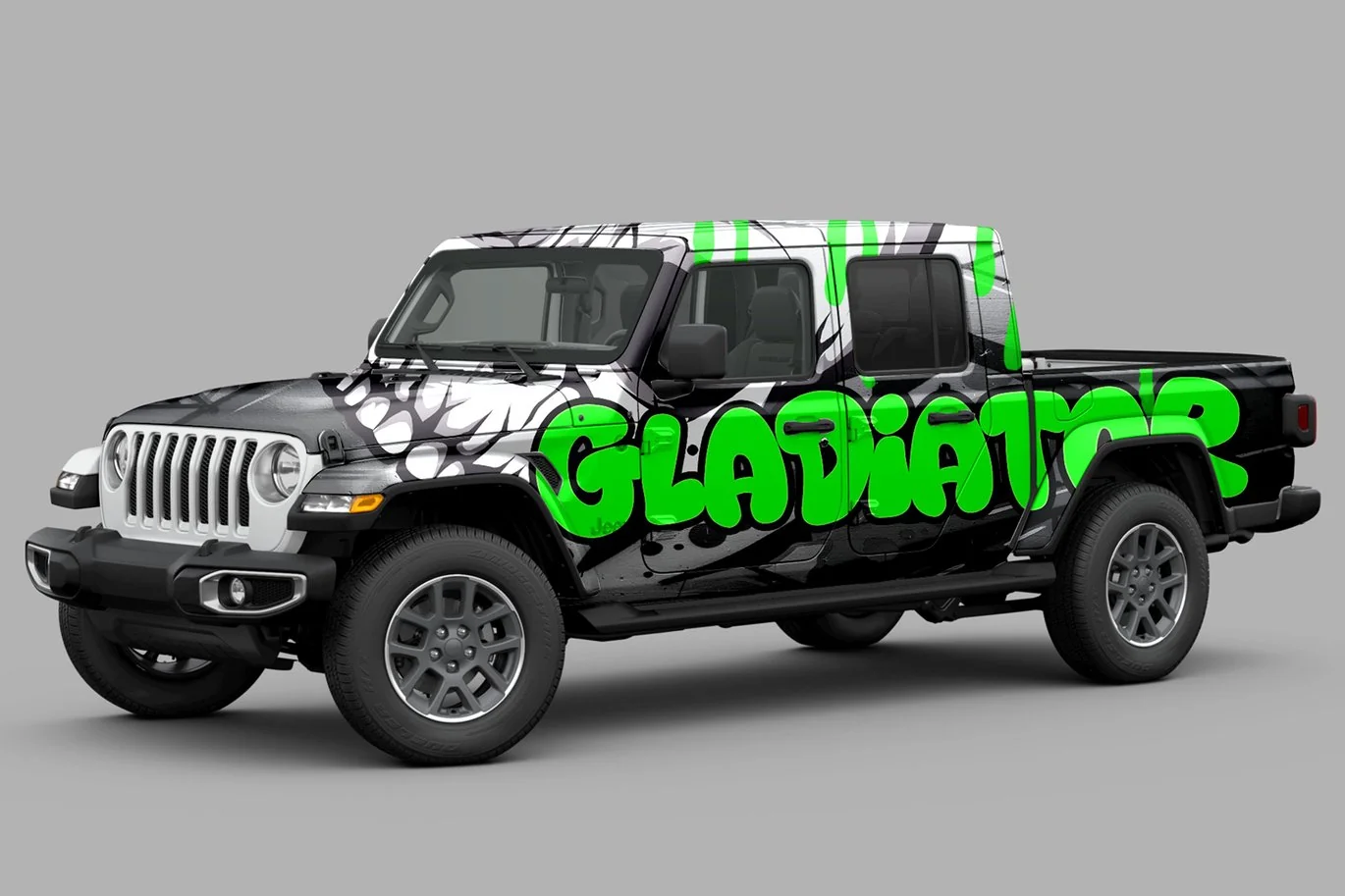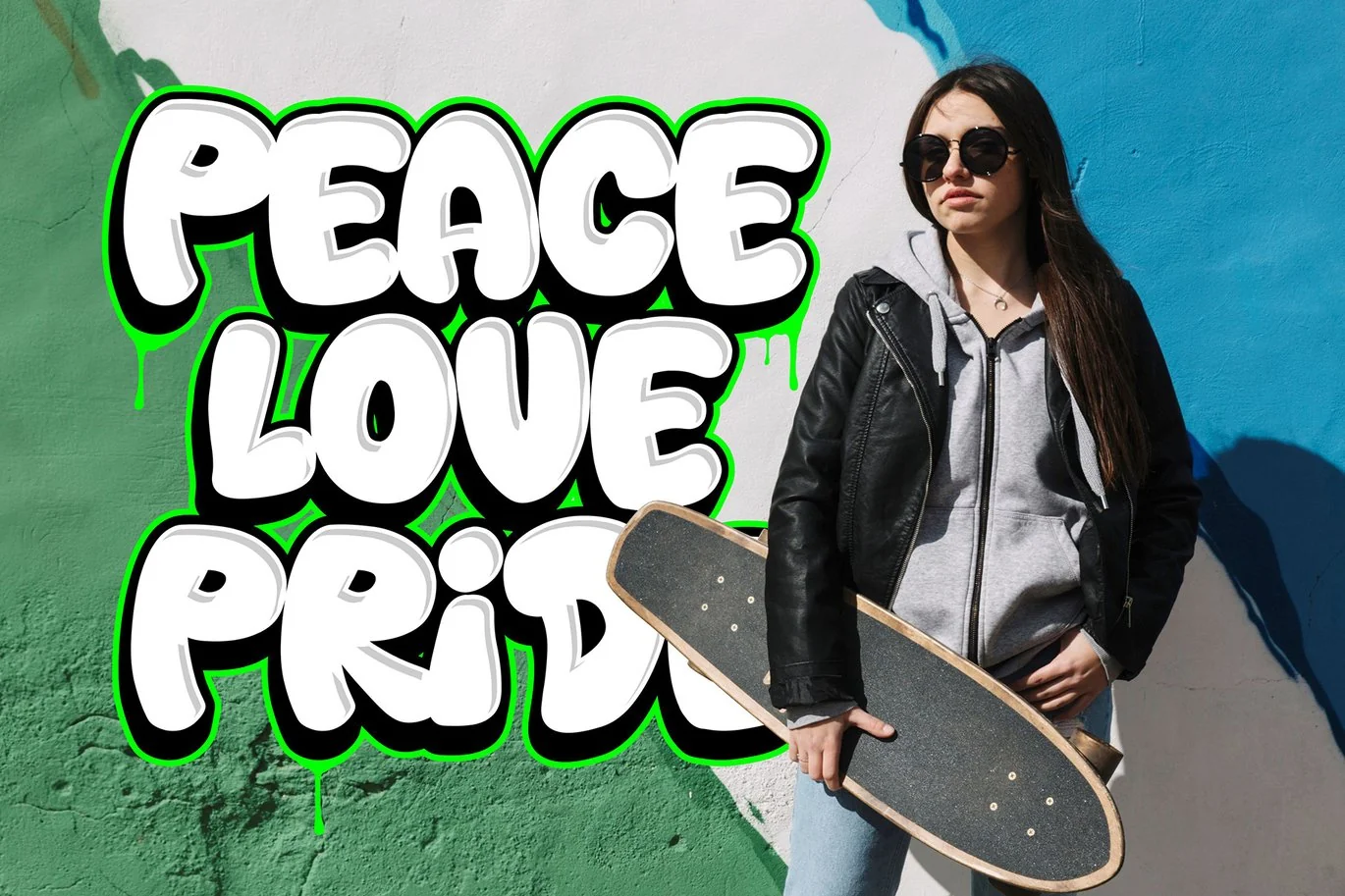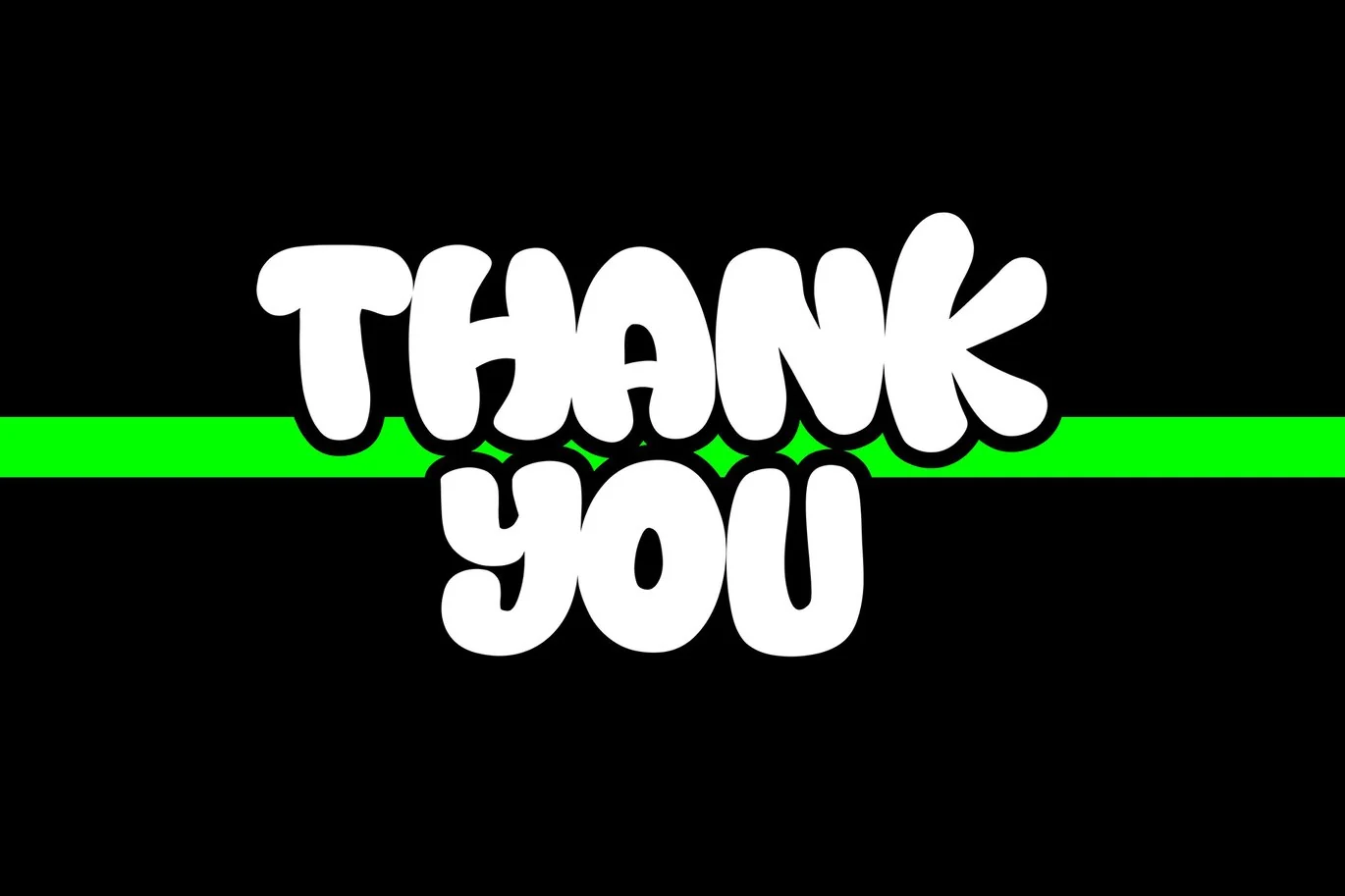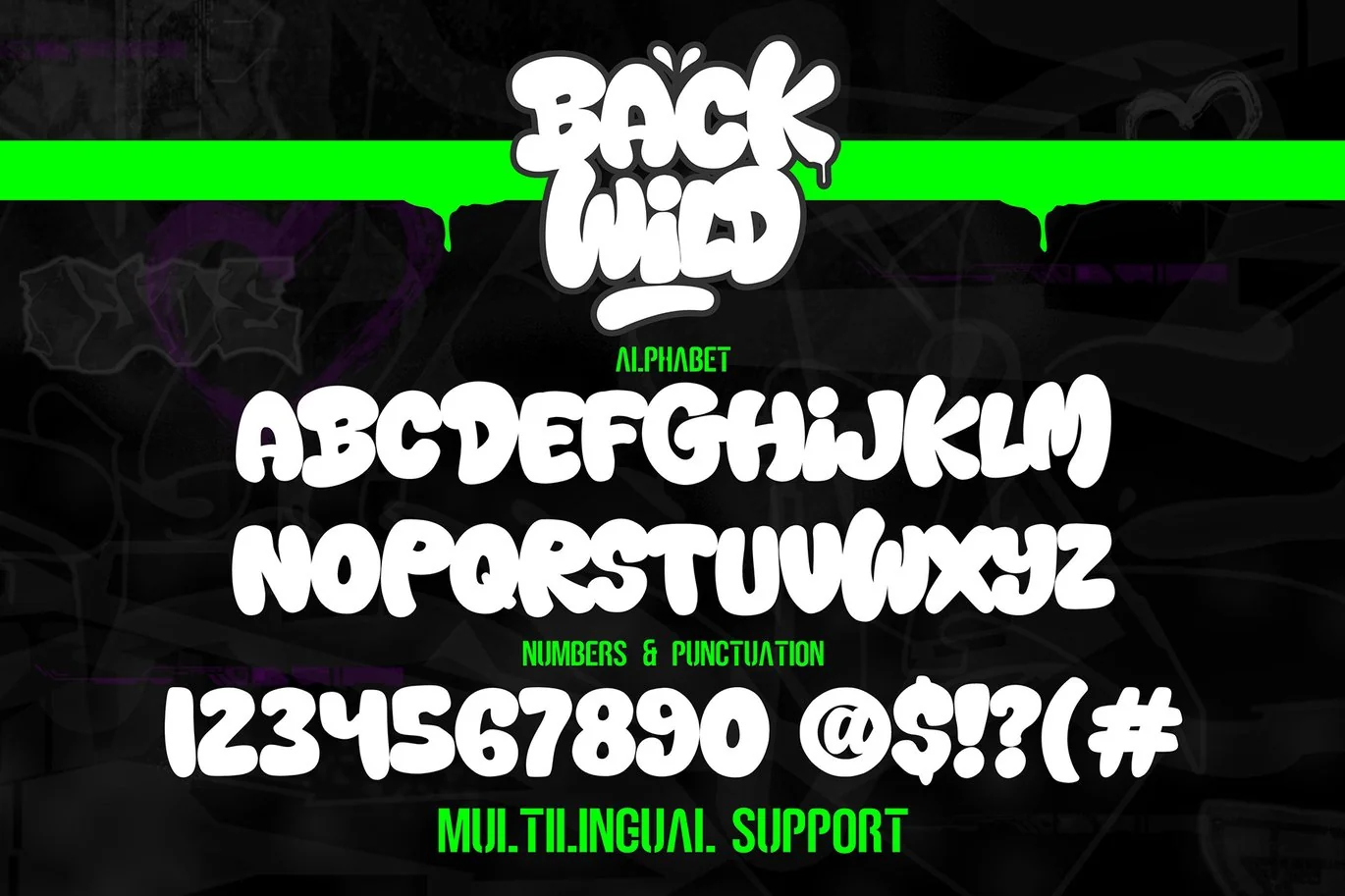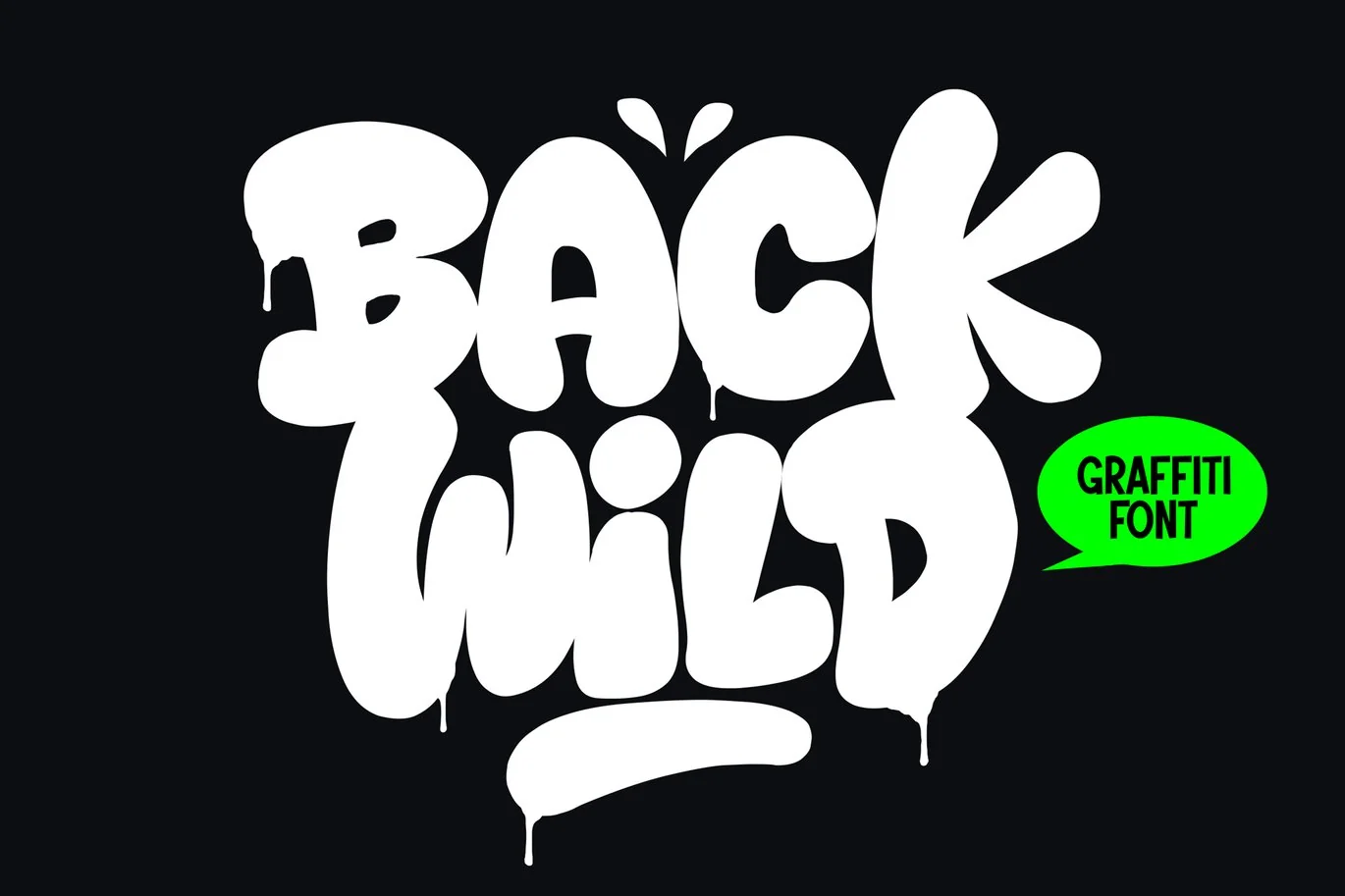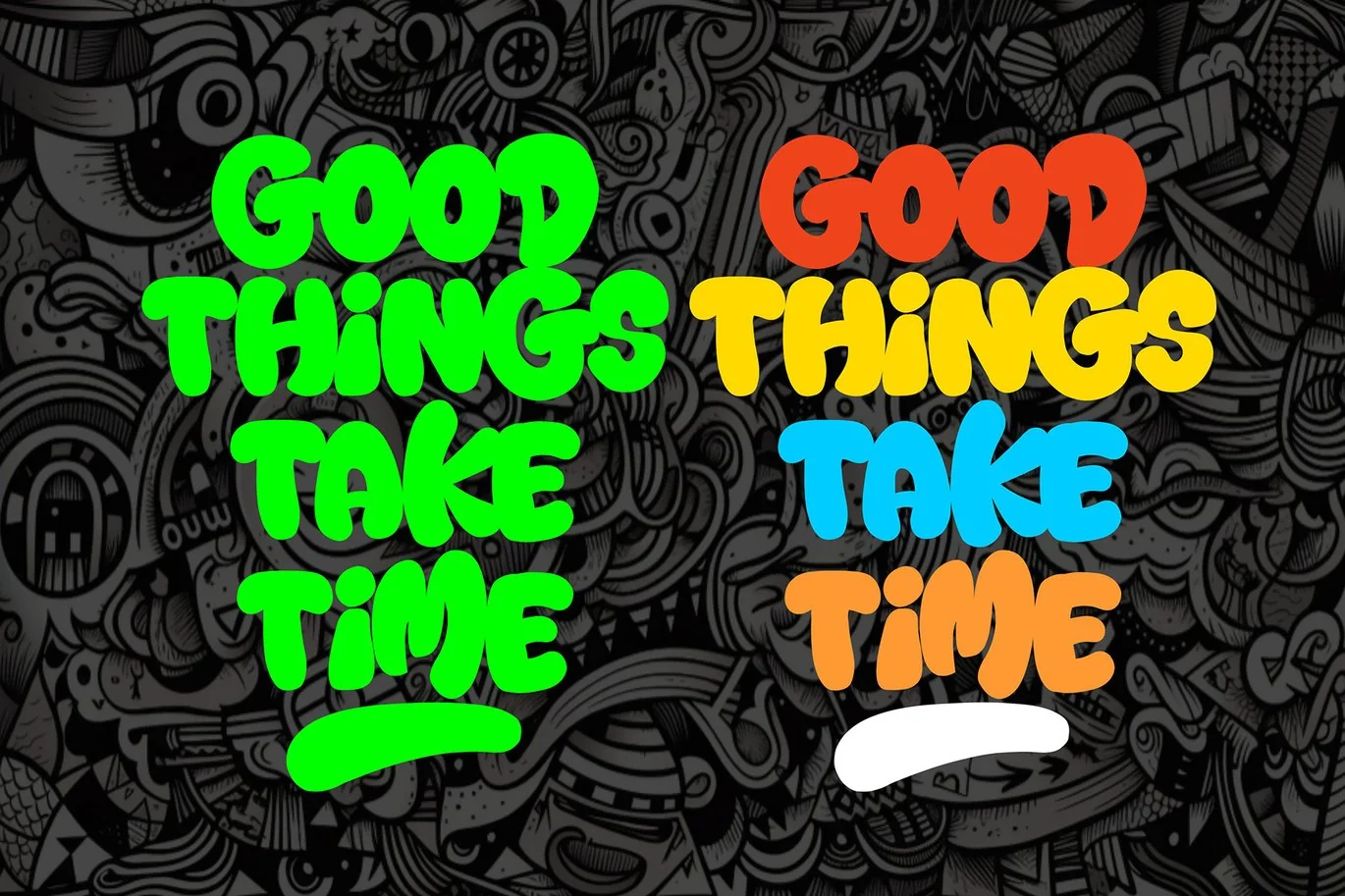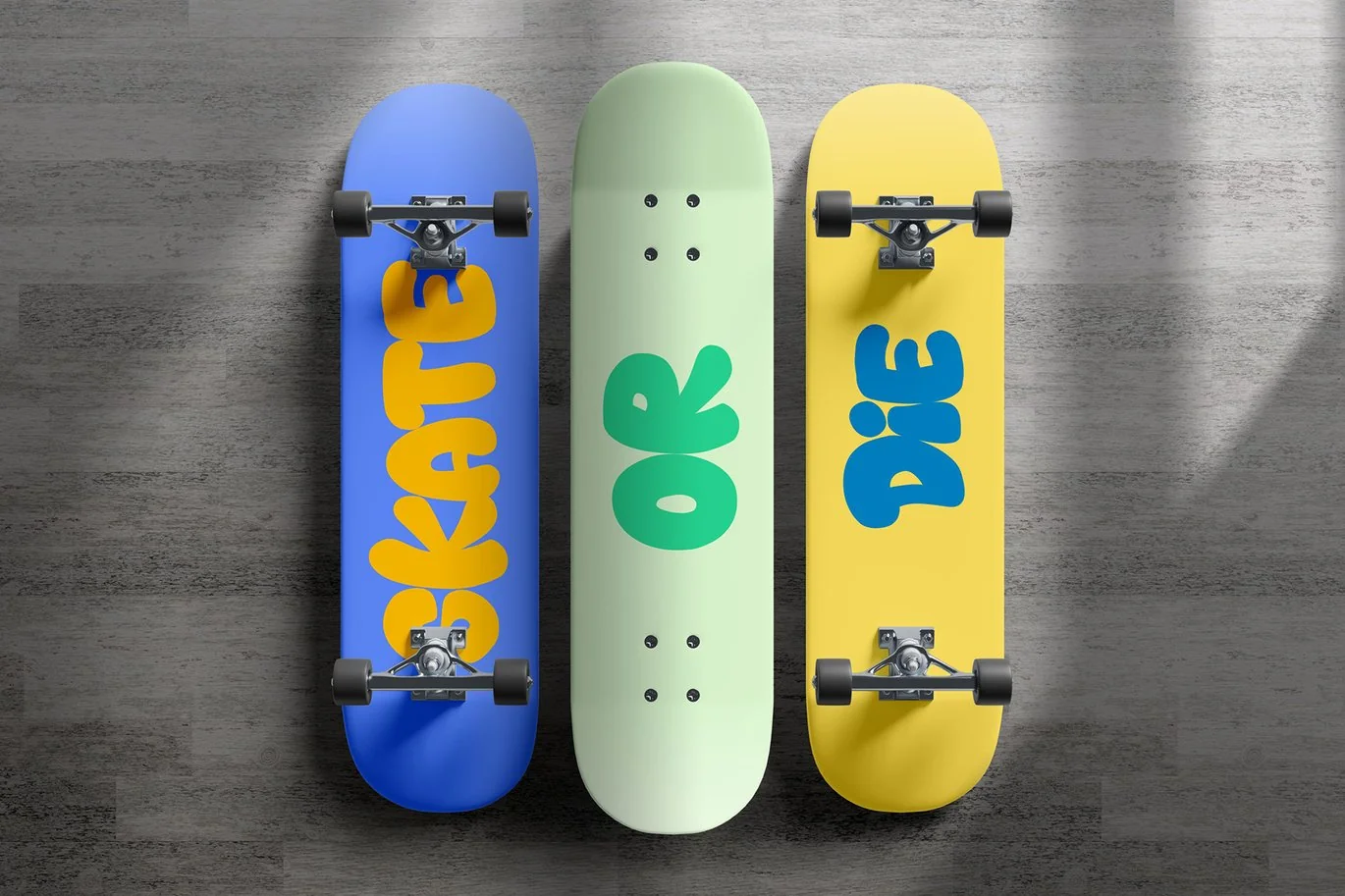
Back Wild – Fun Graffiti Font
Back Wild is not just a font; it’s an urban playground of creativity. This fun graffiti font, adorned with bonus swashes, adds an extra layer of excitement to your designs. The playful, free-flowing lettering captures the rebellious spirit of street art, and the bonus swashes offer dynamic embellishments for added flair. Whether you’re crafting posters, street-style graphics, or any project that craves an energetic and carefree vibe, Back Wild transforms your text into a vibrant expression, making your designs pop with urban exuberance and playful charm.